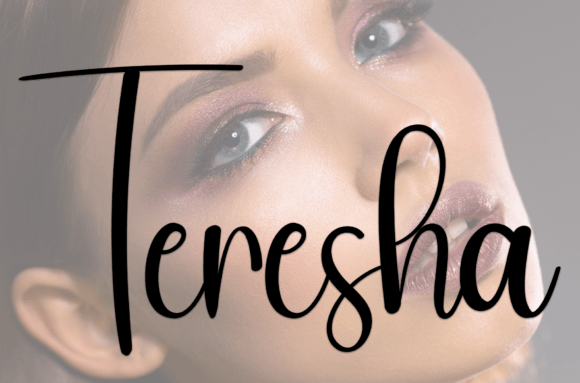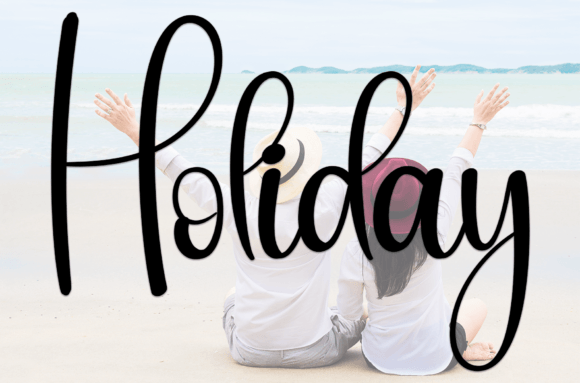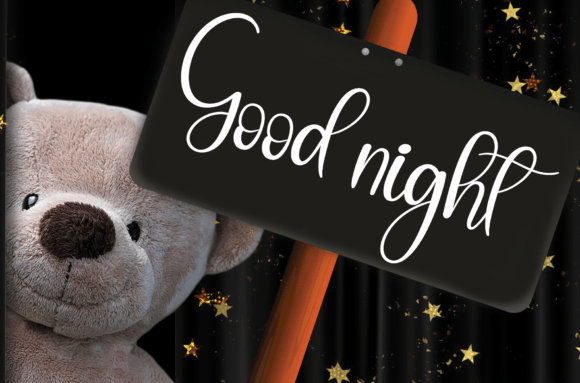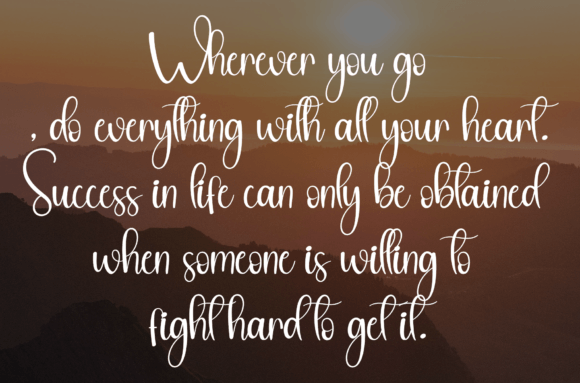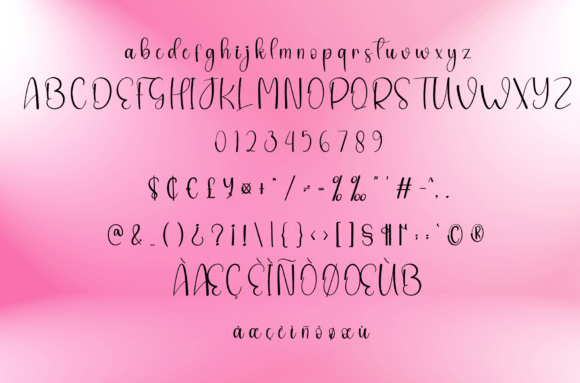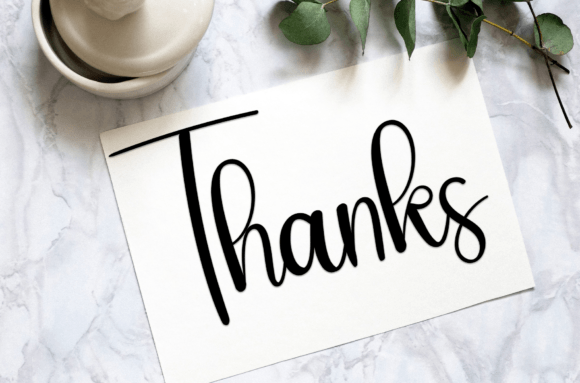
Daddy Smile Font: Add a Sweet and Friendly Touch to Your Designs
Are you looking for a font that can add a playful and charming touch to your designs? Look no further than the Daddy Smile font! This sweet and friendly handwritten font is perfect for creating wedding invitations, cards, and other designs that require a fun and whimsical feel.
What is Daddy Smile Font?
Daddy Smile is a beautiful, handwritten font that is sure to capture the hearts of designers and crafters alike. Its cute and fun design makes it an ideal choice for a wide range of projects, from wedding invitations and greeting cards to posters and social media graphics.
The font’s sweet and friendly appearance is perfect for adding a personal touch to your designs. Whether you’re creating a romantic wedding invitation or a fun birthday card, Daddy Smile is sure to bring a smile to the recipient’s face.
Key Features of Daddy Smile Font
- Handwritten design: Daddy Smile is a handwritten font that has a personal and unique feel.
- Cute and fun: The font’s design is playful and charming, making it perfect for creating fun and engaging designs.
- Sweet and friendly: The font’s sweet and friendly appearance makes it ideal for creating designs that require a personal touch.
- Versatile: Daddy Smile can be used for a wide range of projects, from wedding invitations and greeting cards to posters and social media graphics.
Use Cases for Daddy Smile Font
Daddy Smile is a versatile font that can be used for a wide range of projects. Here are some use cases where this font can shine:
- Wedding Invitations: The font’s sweet and friendly design makes it perfect for creating romantic wedding invitations that set the tone for a special day.
- Greeting Cards: Daddy Smile is ideal for creating fun and engaging greeting cards for birthdays, holidays, and other special occasions.
- Posters and Flyers: The font’s playful design makes it perfect for creating eye-catching posters and flyers for events, promotions, and products.
- Social Media Graphics: Daddy Smile can be used to create engaging social media graphics that add a personal touch to your online presence.
Tips for Using Daddy Smile Font
Here are some tips for using Daddy Smile font in your designs:
- Pair with other fonts: Daddy Smile can be paired with other fonts to create a unique and interesting design.
- Use for headings and titles: The font’s playful design makes it perfect for using as headings and titles in your designs.
- Add a personal touch: Use Daddy Smile to add a personal touch to your designs, making them more engaging and relatable.
Daddy Smile font is a sweet and friendly handwritten font that is perfect for adding a playful and charming touch to your designs. Its cute and fun design makes it ideal for creating wedding invitations, cards, and other designs that require a fun and whimsical feel. With its versatile design and wide range of use cases, Daddy Smile is sure to become a favorite among designers and crafters.